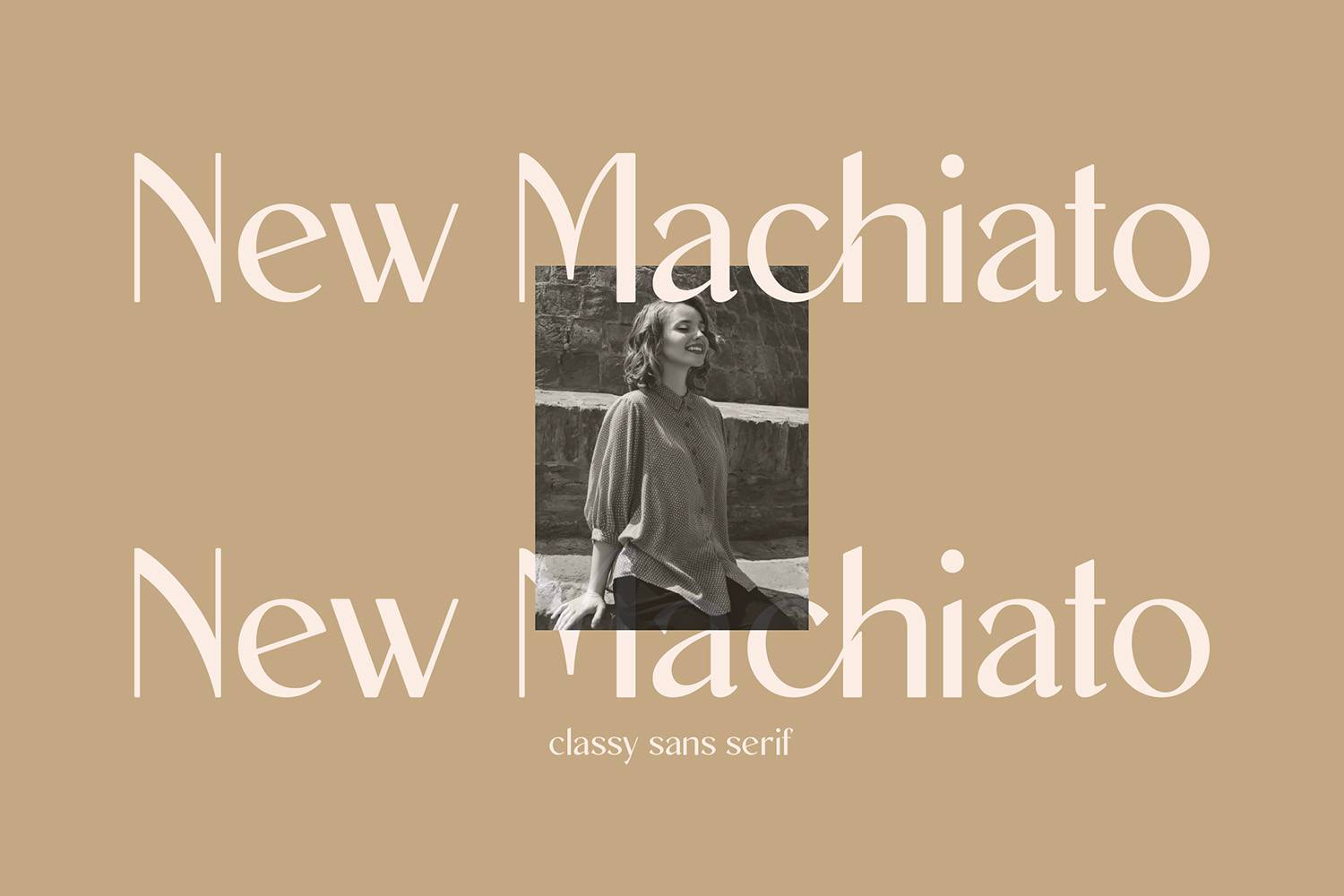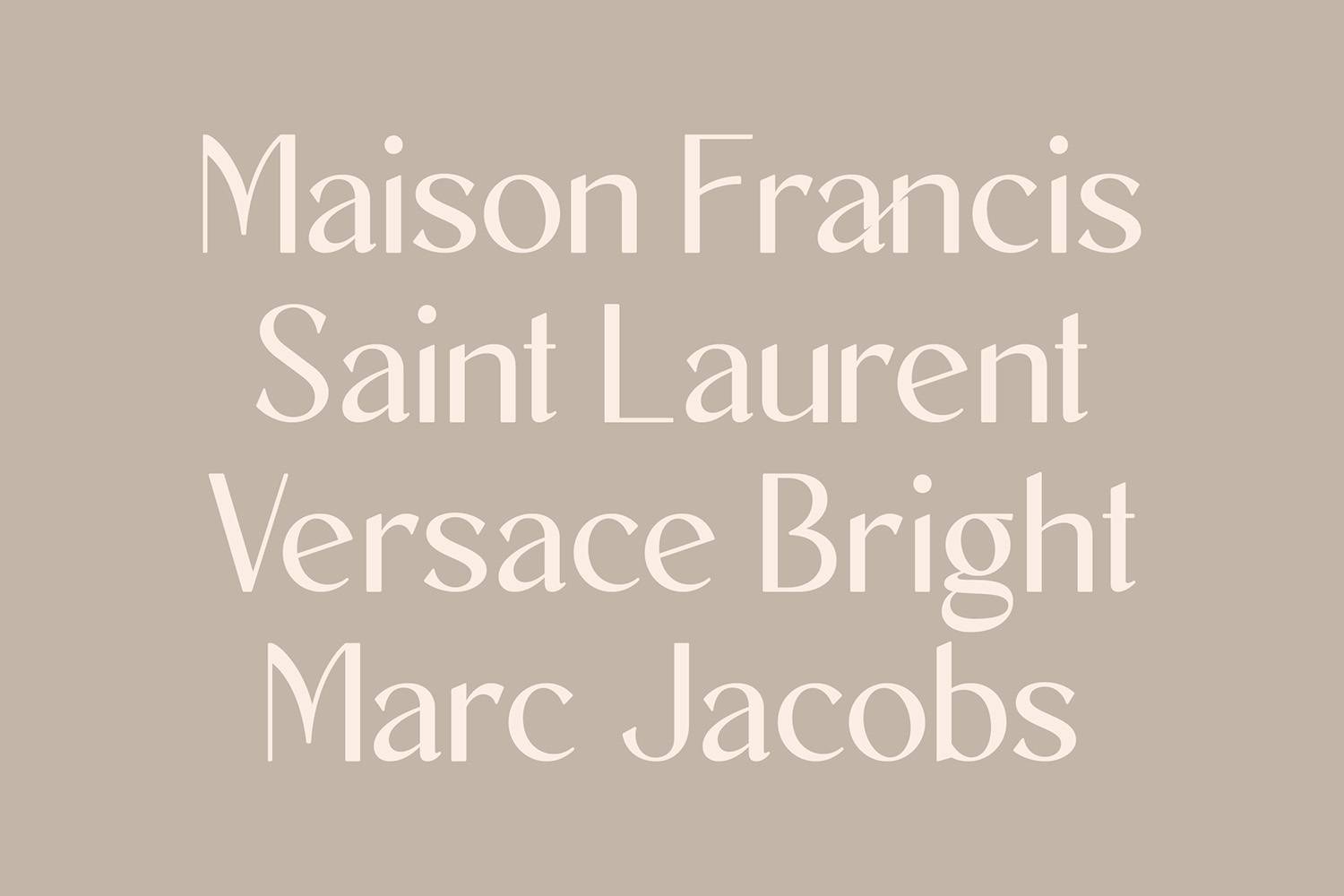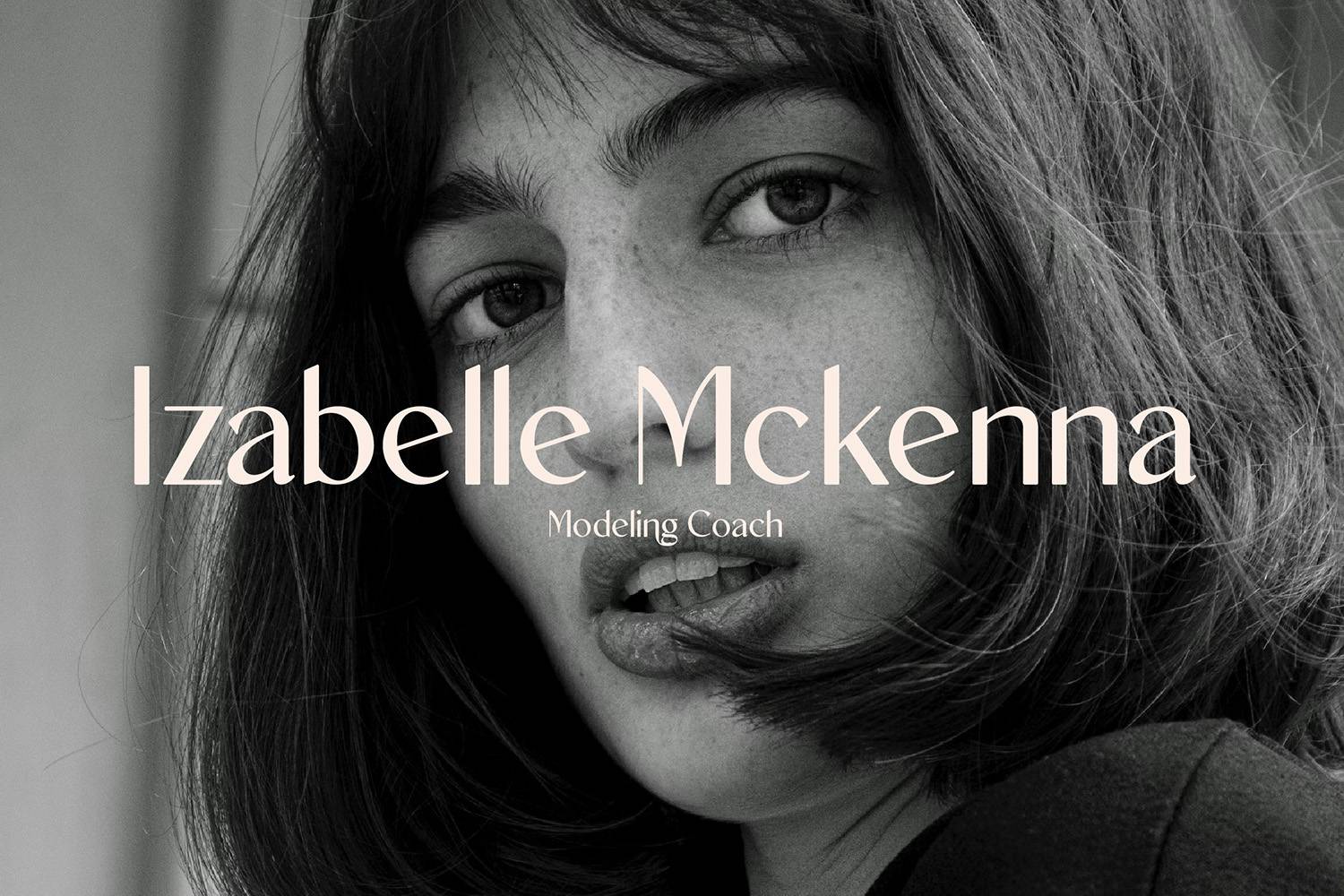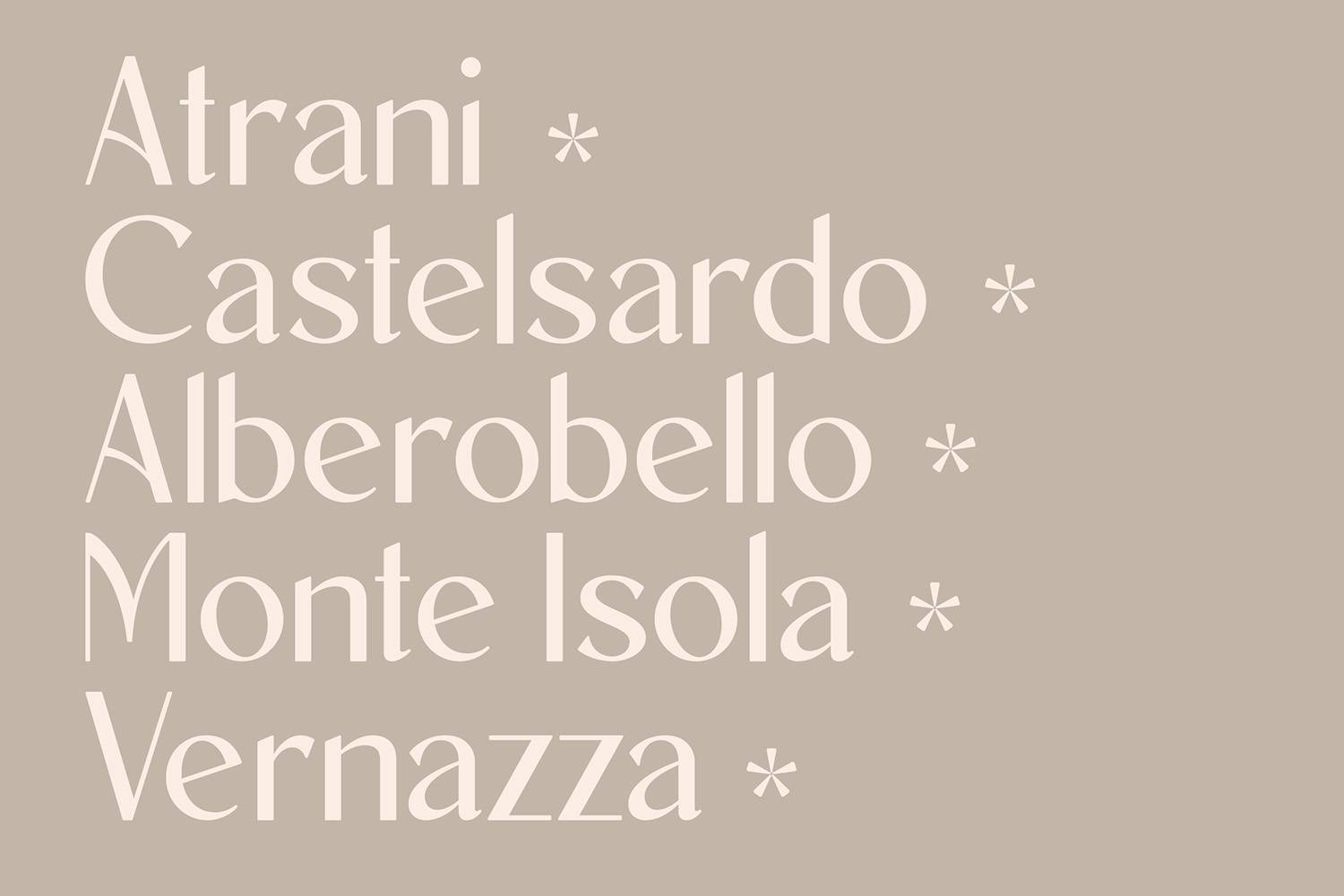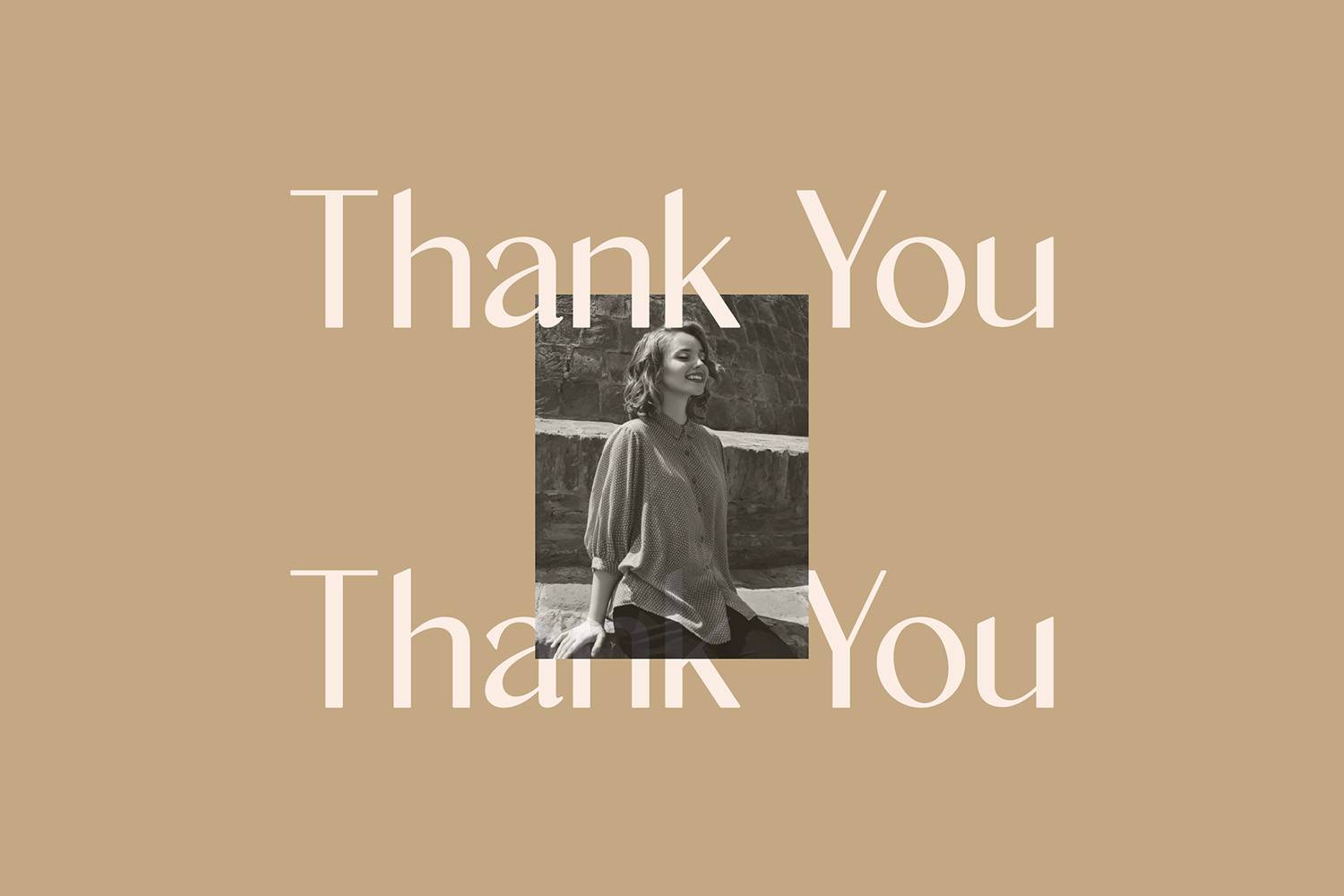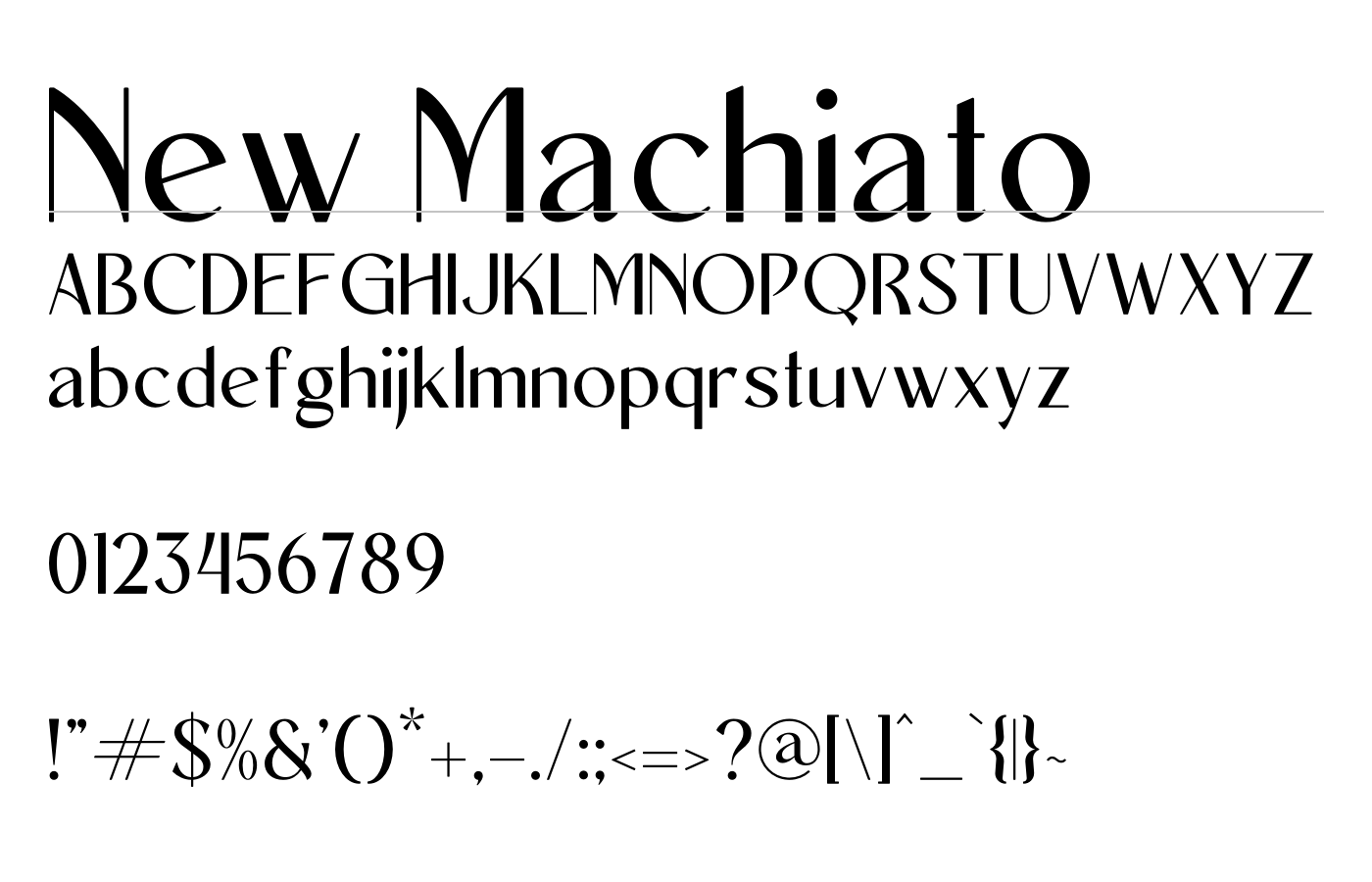
New Machiato is a sleek serif font with a modern, elegant flair, characterized by its high contrast between thick and thin strokes and delicate, sharp serifs. Its refined letterforms and subtle unique details lend a sophisticated yet approachable feel, making it perfect for fashion branding, editorial headlines, and luxury packaging. This font balances classic charm with contemporary style, ideal for projects seeking a graceful and distinctive look.
New Machiato Font
About New Machiato Font